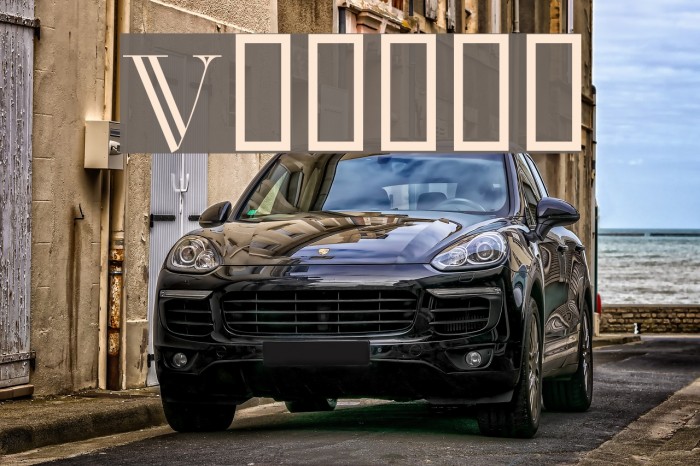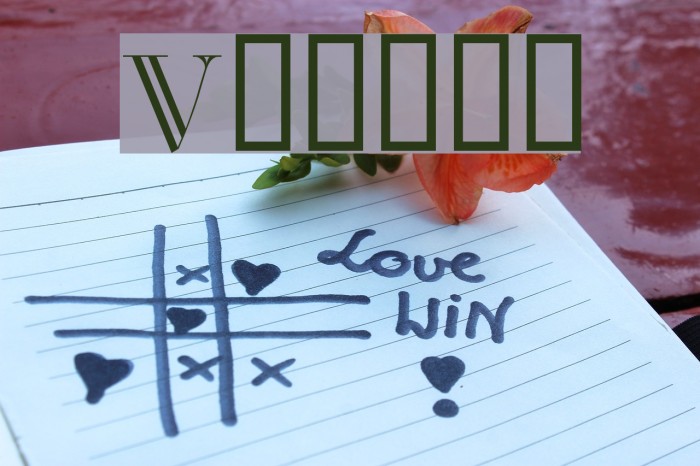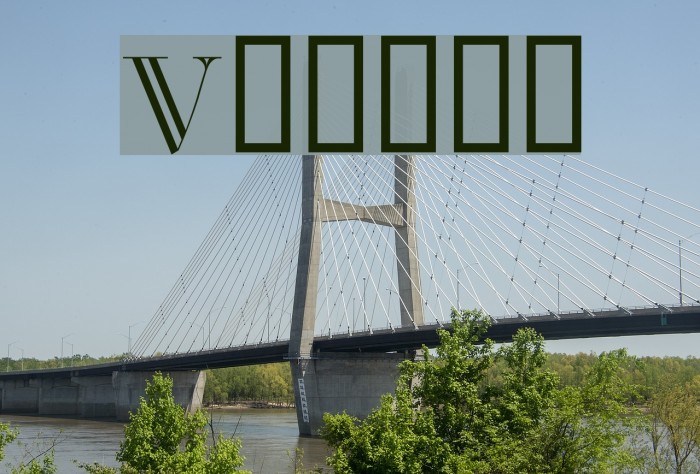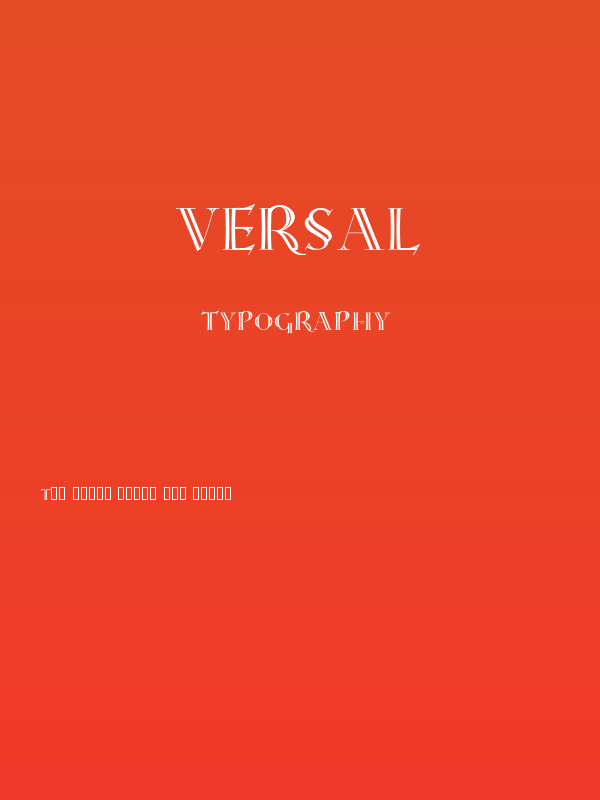
Versal Font
Versal Description
This font features an elegant and sophisticated design with a classic serif style. The uppercase letters are adorned with intricate details, including sharp serifs and unique embellishments that give each character a distinct personality. The strokes vary in thickness, creating a high contrast that enhances the font's visual appeal. The overall design is reminiscent of traditional calligraphy, yet it maintains a modern touch with its clean lines and precise angles. This font is perfect for projects that require a touch of elegance and refinement, such as formal invitations, luxury branding, or editorial layouts. Its decorative nature makes it ideal for headlines and titles, where it can stand out and make a statement.
| Proposed Projects | Ideal for luxury branding, formal invitations, editorial layouts, and decorative headlines. |